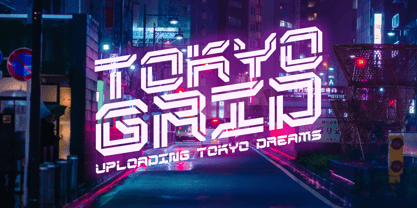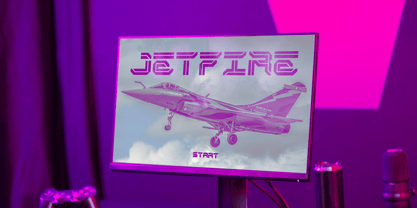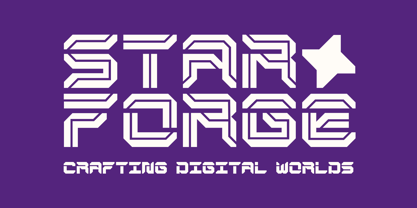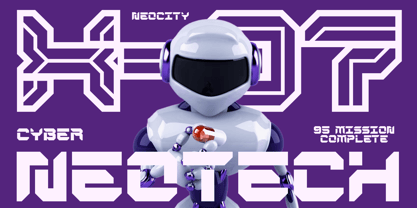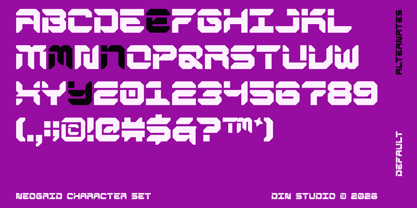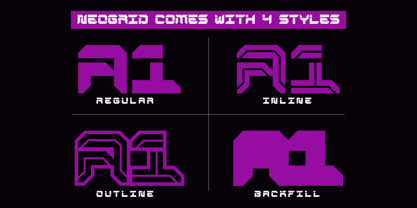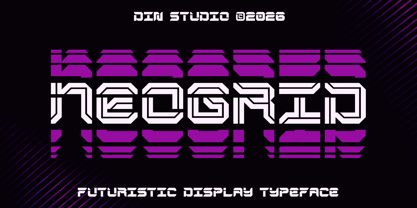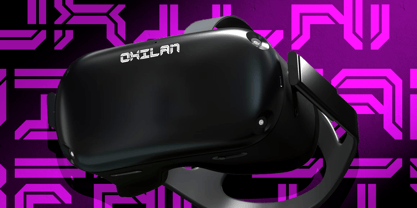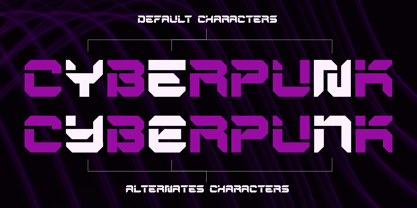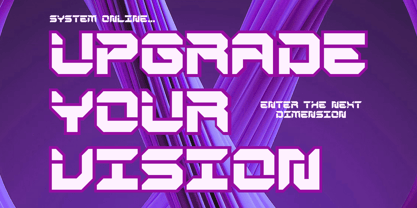
Neogrid
The Neogrid Font Family was designed by Donis Miftahudin and published by Din Studio. Neogrid contains 4 styles and family package options. More about this family
Neogrid is a bold display font that embodies the essence of futuristic design, crafted to deliver a powerful visual impact in modern creative projects. With its strong weight, geometric structure, and cutting-edge aesthetic, Neogrid stands out as a forward-thinking typeface that captures the spirit of technology, innovation, and digital culture. Every letter is designed with precision, featuring sharp angles and structured forms that create a sleek, high-tech appearance. In addition, enjoy the features here. Features: Alternates Multilingual Supports PUA Encoded Numerals and Punctuations Neogrid fits in logos, quotes, branding, posters, and many more designs. Find out more ways to use this font by taking a look at the font preview. Thanks for purchasing our fonts. Hopefully, you have a great time using our font. Feel free to contact us anytime for further information or when you have trouble with the font. Thanks a lot and happy designing.
Din Studio is a type design studio founded by Donis Miftahudin in 2017. The studio focuses on creating unique and visually appealing script and display fonts that stand out in the industry. Donis Miftahudin is a well-known type designer in the industry and has created several popular fonts under the Din Studio brand.The fonts designed by Din Studio are characterized by their distinct style and aesthetic appeal. The studio's designs often incorporate unique elements, such as intricate ligatures and swashes, to create fonts that are not only visually stunning but also highly functional. The studio's fonts are often used in a variety of applications, including branding, advertising, and editorial design.Din Studio's fonts are highly regarded in the design community and have received recognition from industry publications and organizations. The studio has been featured in several design blogs and magazines, and its fonts have won awards at prestigious design competitions.One of the hallmarks of Din Studio's work is its commitment to innovation and experimentation. The studio is constantly exploring new techniques and approaches to type design, pushing the boundaries of what is possible in the field. This dedication to innovation has helped Din Studio establish itself as one of the most exciting and influential type design studios in the industry.Overall, Din Studio is a dynamic and innovative type design studio that is pushing the boundaries of what is possible in the field. With its focus on unique and visually appealing script and display fonts, the studio is poised to continue making a significant impact in the design community for years to come.